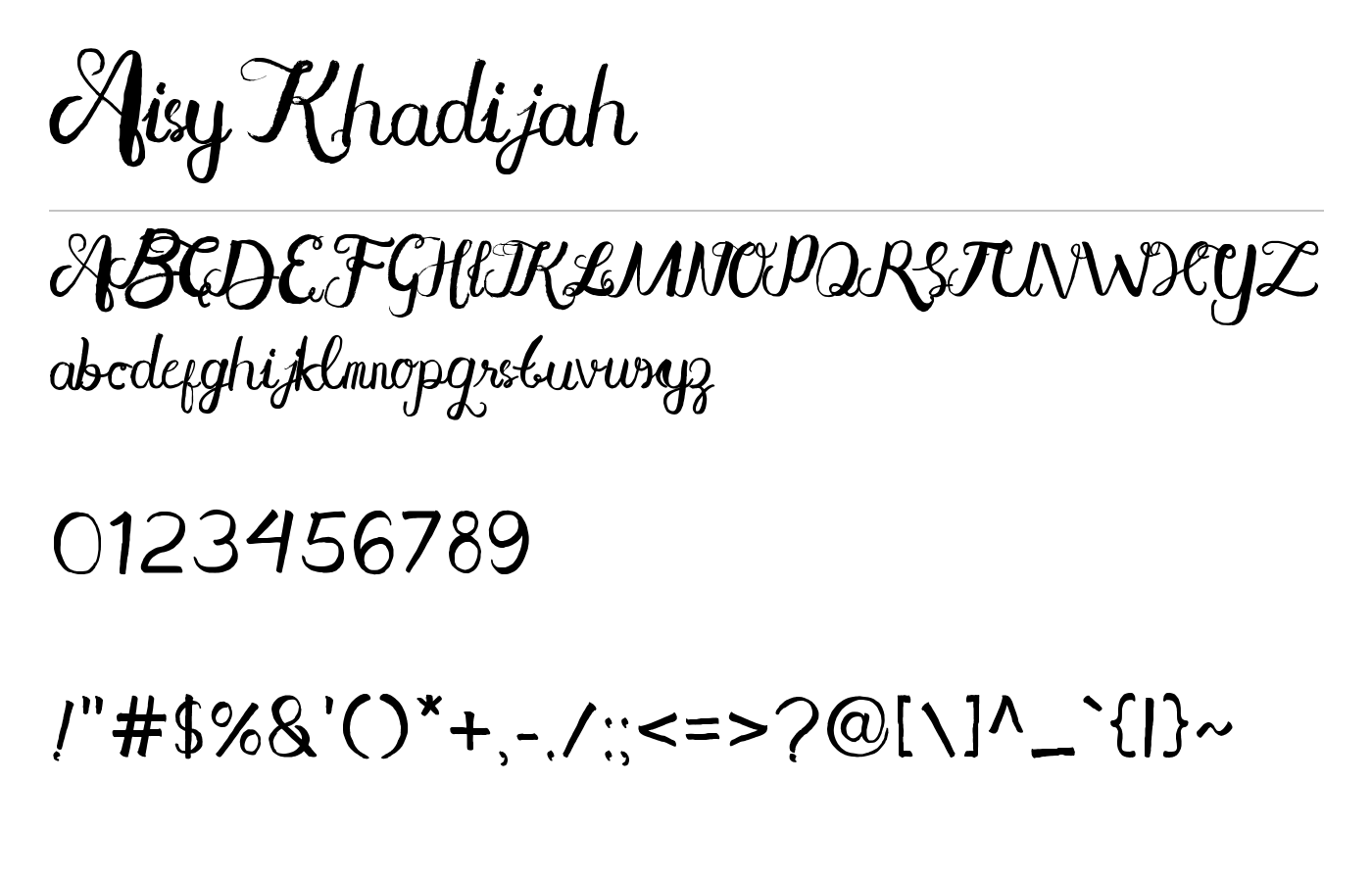
Aisy Khadijah is a decorative script font with a playful and elegant handwritten style, featuring flowing, intricate letterforms with a moderate contrast in stroke weight. Its distinctive uppercase letters are ornate and eye-catching, while the lowercase and numerals maintain a delicate, graceful appearance, making it ideal for creative and artistic projects. This font works beautifully in invitations, branding, and headlines where a charming, personal touch is desired.
Aisy Khadijah Font
About Aisy Khadijah Font
| Font family | Aisy Khadijah Font |
| Designer | Syukur Setiyadi |